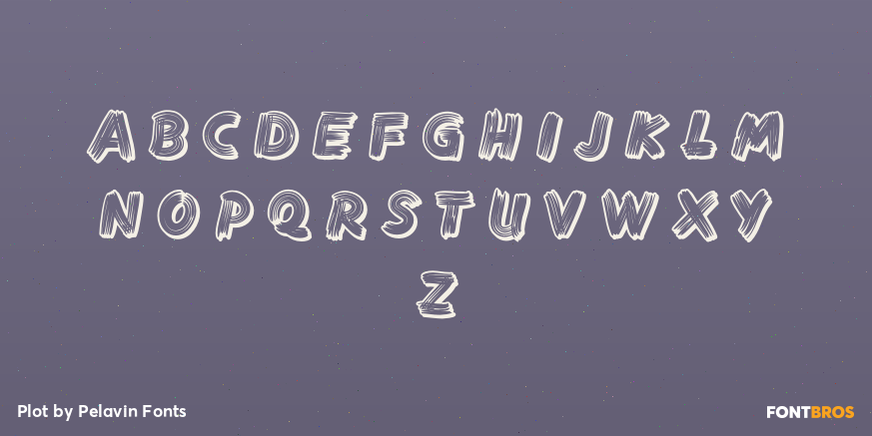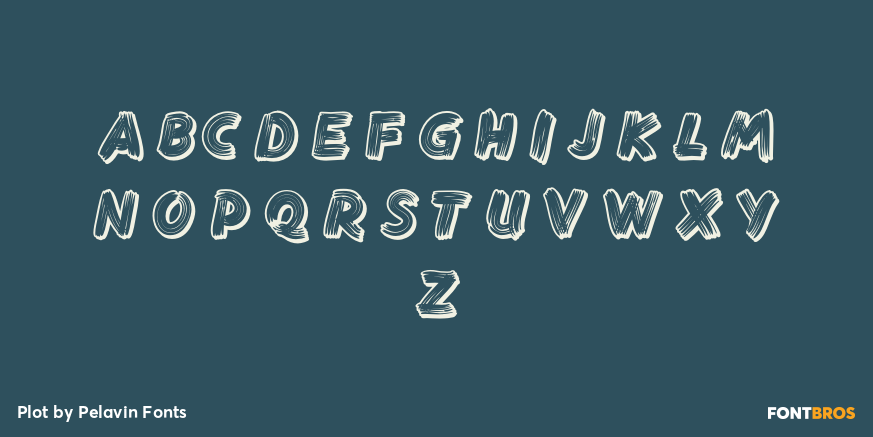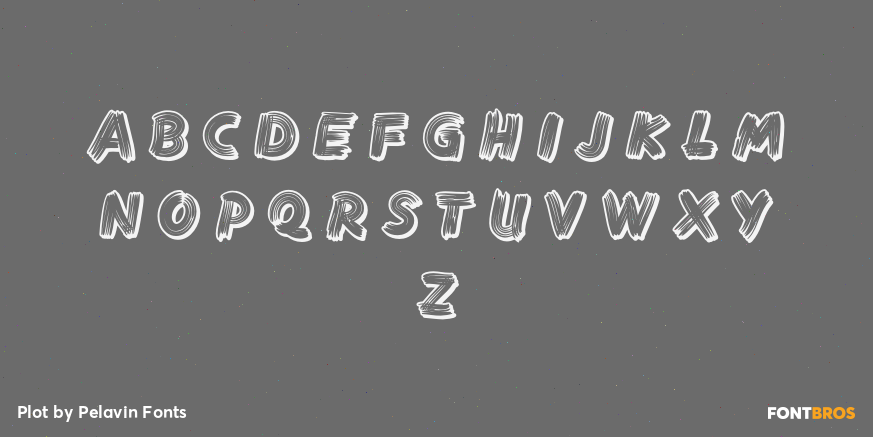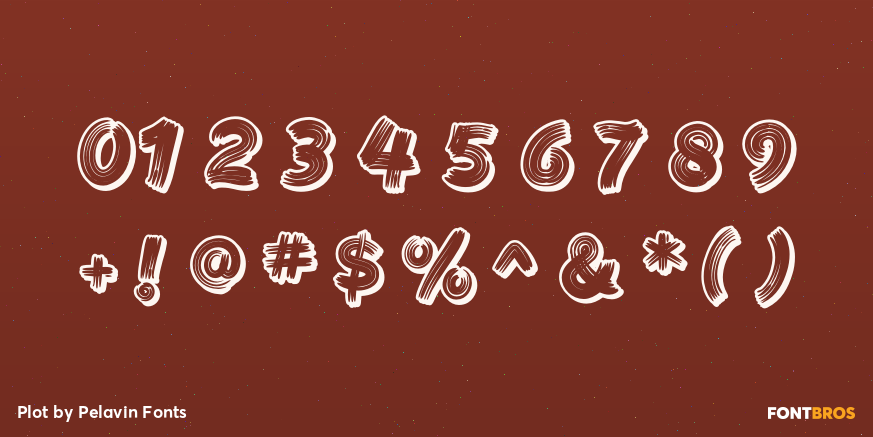
Plot
Font Family by Pelavin Fonts
Buy NowA tip of the hat to the conspiracy-wary, the rapid beat of a pulsing heart and the feeling that doom is close at hand; this is the voice of Plot, a bold and hastily rendered display font.
Plot Outline and its companion Plot Thickens may be used separately or together to create multiple color variations. Alternate glyphs will be used automatically in the case of repeating characters, a perfect complement to messages of subterfuge and deceit.